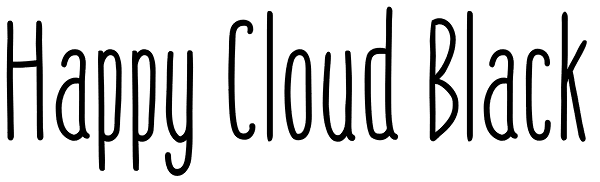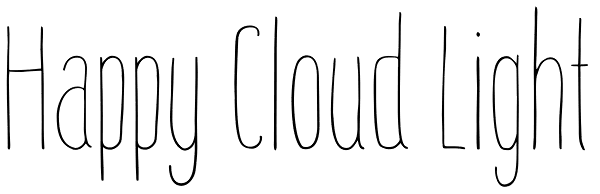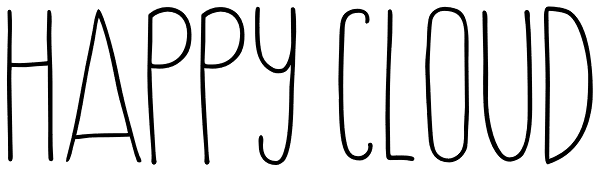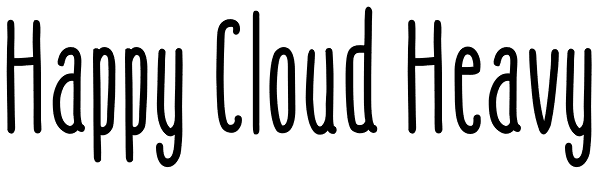
Happy Cloud
Happy Cloud is a fun, tall handwritten font created by Cultivated Mind. This font features five font weights (Light/Regular/Bold/Black/Heavy).